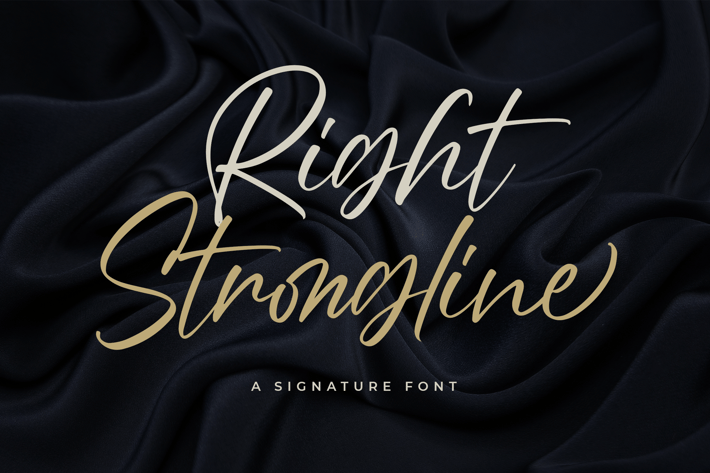
Right Strongline - a Signature Font
Introducing of our new product the name is Right Strongline a Signature Font inspired by classy signature style this font is a fun theme very good for display, tshirt design, craft, quote sign, logotype and etc